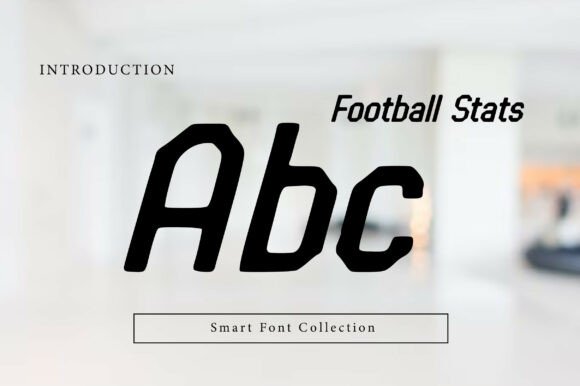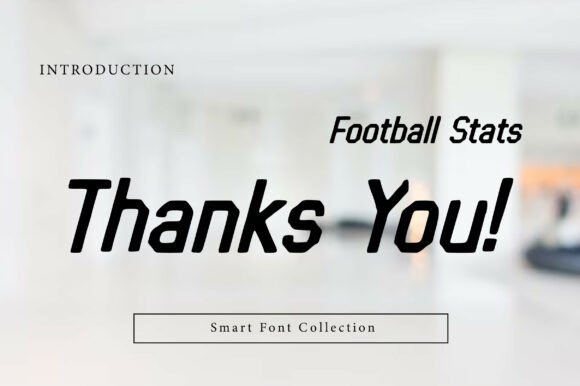
Unleashing the Power of Football Stats Font
As a designer, there’s nothing quite like the thrill of landing a sports-themed project – the rush of adrenaline, the excitement of creating something that will captivate a live audience, and the satisfaction of delivering a high-quality visual identity that does justice to the client’s vision. For me, it all started with a sports stadium’s gleaming scoreboard, its bold, easy-to-read numbers and logos that seemed to leap off the screen. And that’s exactly what the Football Stats Font is designed to do – deliver a modern, game-day vibe that’s perfect for scoreboards, match posters, team branding, and more.
With its bold weight, clean edges, and forward-leaning motion, the Football Stats Font is a game-changer for designers working on creative projects that require a high-quality, sporty aesthetic. Whether you’re creating social media sports content, highlights, or event promotions, this font is sure to bring a winning combination of style and readability to your designs.
Key Features of Football Stats Font
- High-quality typography with precise details and smooth curves, ideal for creative projects and design resources.
- Transparent background, allowing for easy customization and integration with various backgrounds.
- Designed with a modern aesthetic, perfect for sports-themed design projects, such as football stats and scores.
- Includes a comprehensive character set, covering a wide range of languages and characters.
Honest Review: Football Stats Font
I recently had the chance to work with the Football Stats Font, and I must say it’s a fantastic addition to any design project. The font is a high-quality, sans-serif design that’s perfect for displaying sports statistics and scores.
One of the things that stands out about this font is its transparent background, which makes it easy to layer over other design elements. This is especially useful for creating creative projects that require a lot of visual interest.
Here are some of the things that work well with the Football Stats Font:
- High-quality design: The font looks professional and well-designed, making it perfect for serious sports fans and teams.
That being said, there are a few limitations to be aware of:
- ⚠️ Limited character set: The font only includes a limited set of characters, which may not be suitable for complex text-based designs.
- ⚠️ Not suitable for body text: The font is best used for display purposes, as it can be difficult to read in large blocks of text.
Overall, I’m really impressed with the Football Stats Font. It’s a great design resource that’s perfect for creative projects that require a touch of sports flair.
The Football Stats Font is a high-quality, versatile design resource perfect for creative projects. With its transparent background, this font is ideal for overlaying on images or using as a standalone element in your designs.
Experiment with different font sizes, colors, and styles to create a unique look. Use the font in combination with other design elements to create a cohesive and visually appealing design.
The Football Stats Font is perfect for:
- Sporting events and tournaments
- Football teams and leagues
- Statistics and data visualization
- Marketing and promotional materials